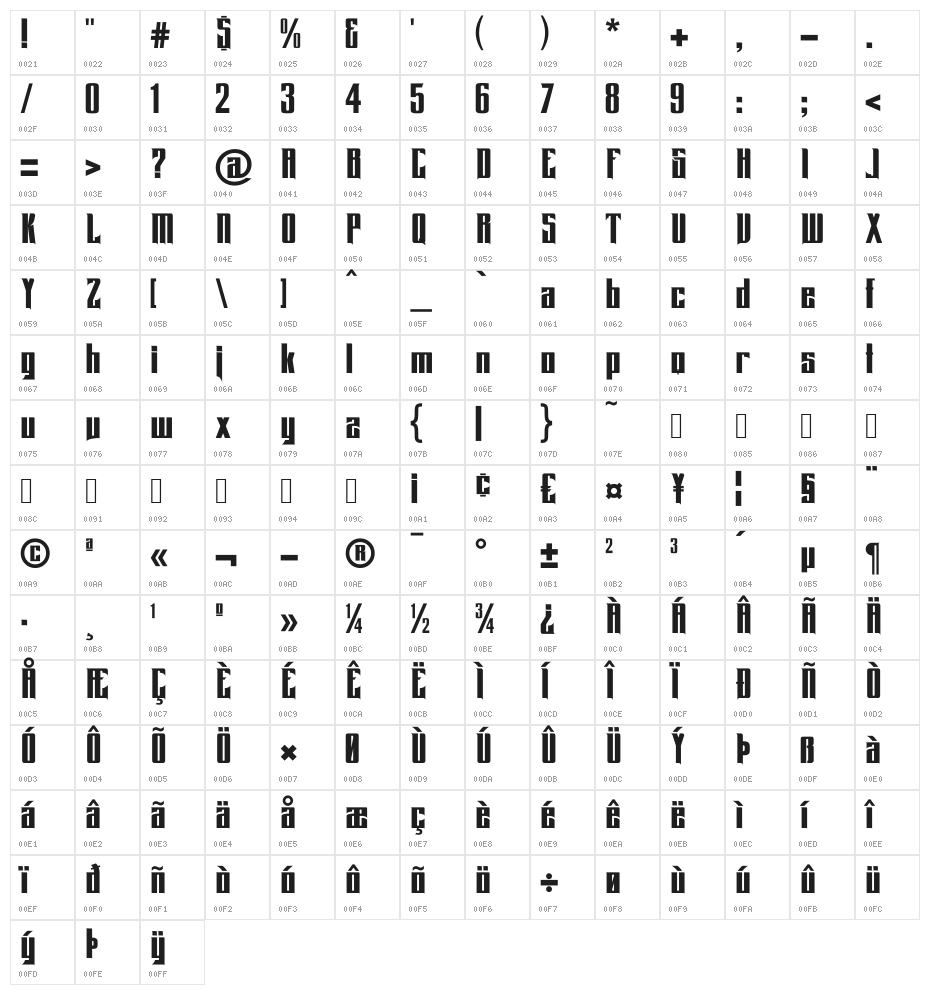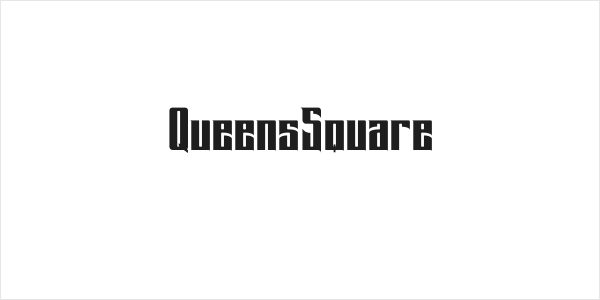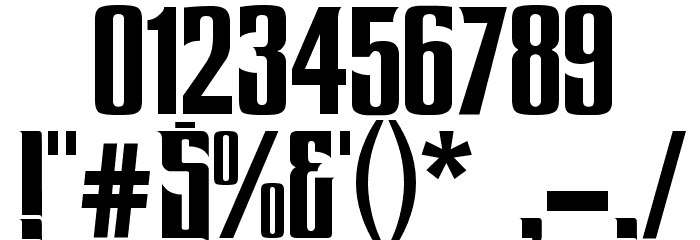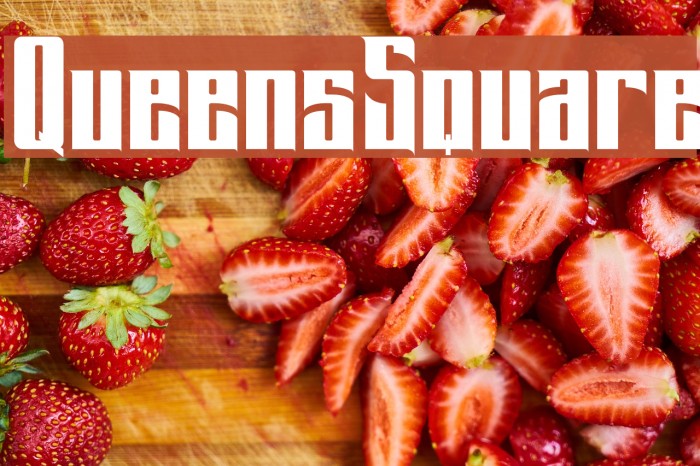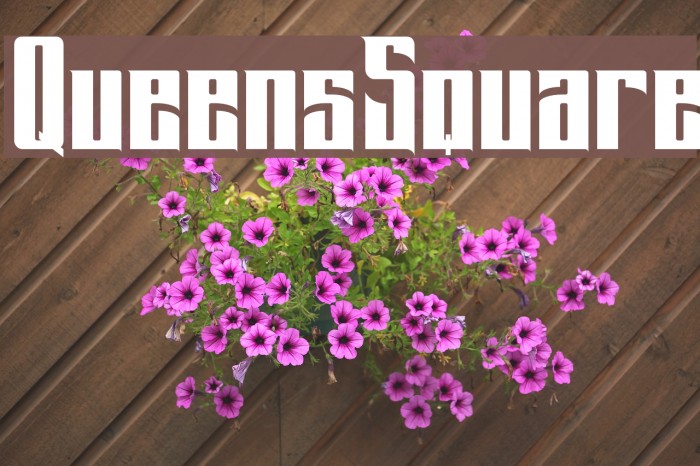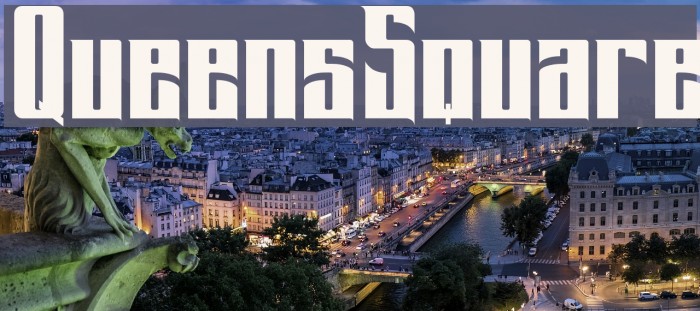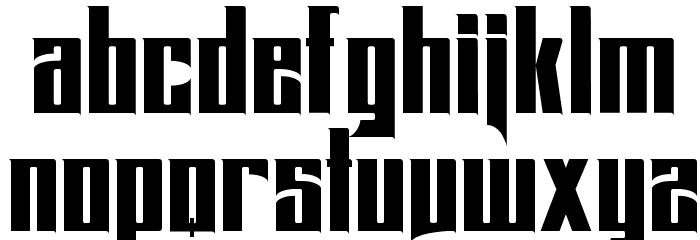
QueensSquare Font
QueensSquare Description
This font features a bold and striking design with a strong presence. The characters are tall and narrow, with sharp, angular edges that give it a modern and edgy appearance. The uppercase letters are particularly prominent, with a uniform height that creates a cohesive look. The lowercase letters maintain the same boldness, ensuring consistency throughout the typeface. Numbers and special characters are designed to match the overall aesthetic, making them equally impactful. This font's unique style makes it suitable for attention-grabbing headlines and titles.
| Proposed Projects | Ideal for posters, album covers, branding projects, and any design requiring a bold statement. |